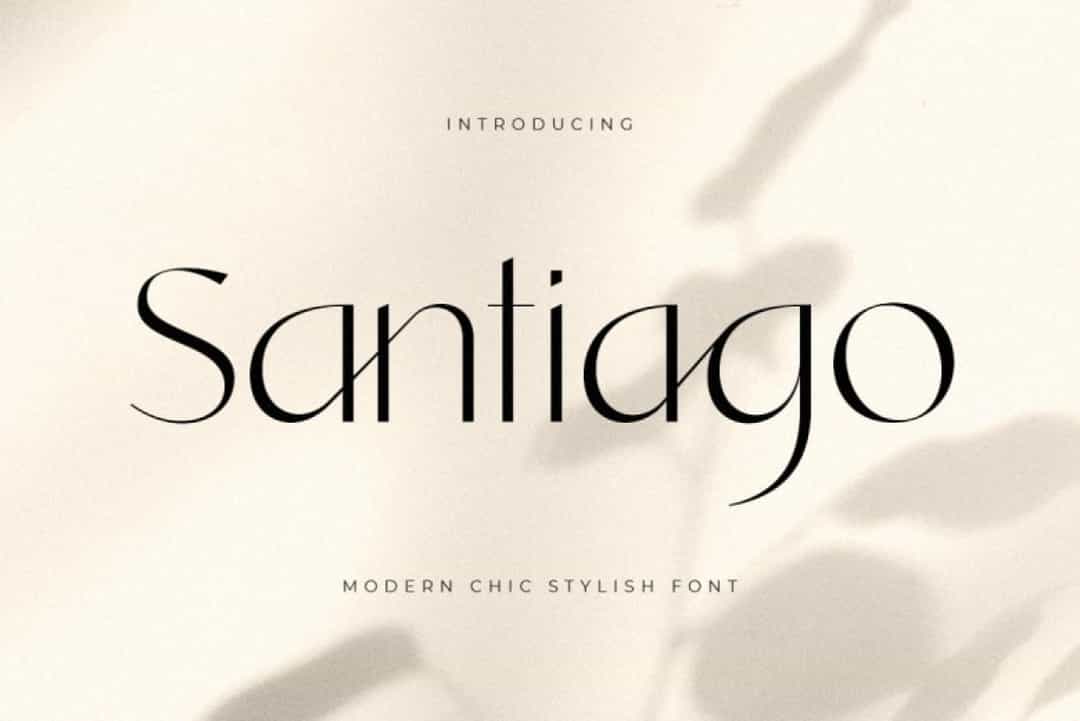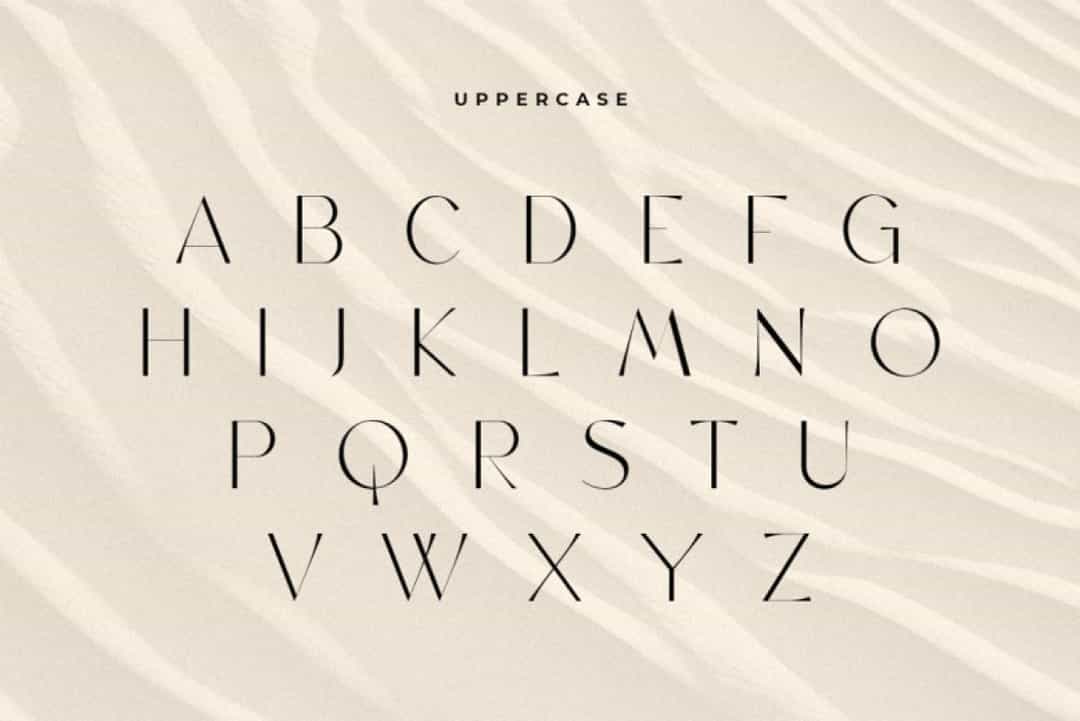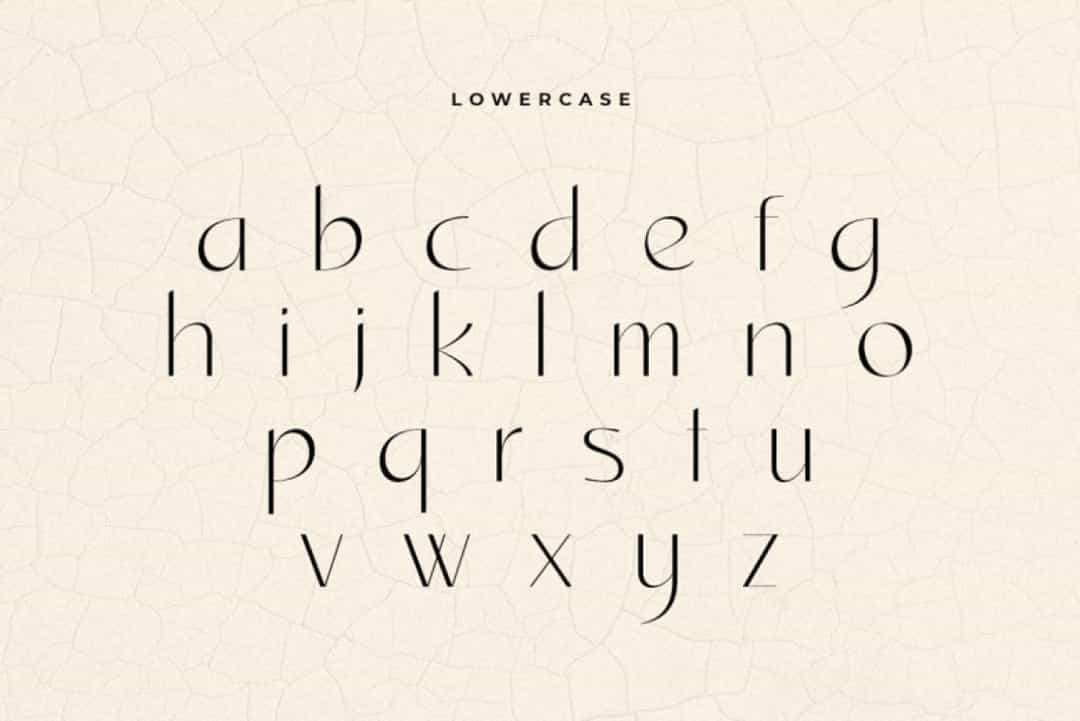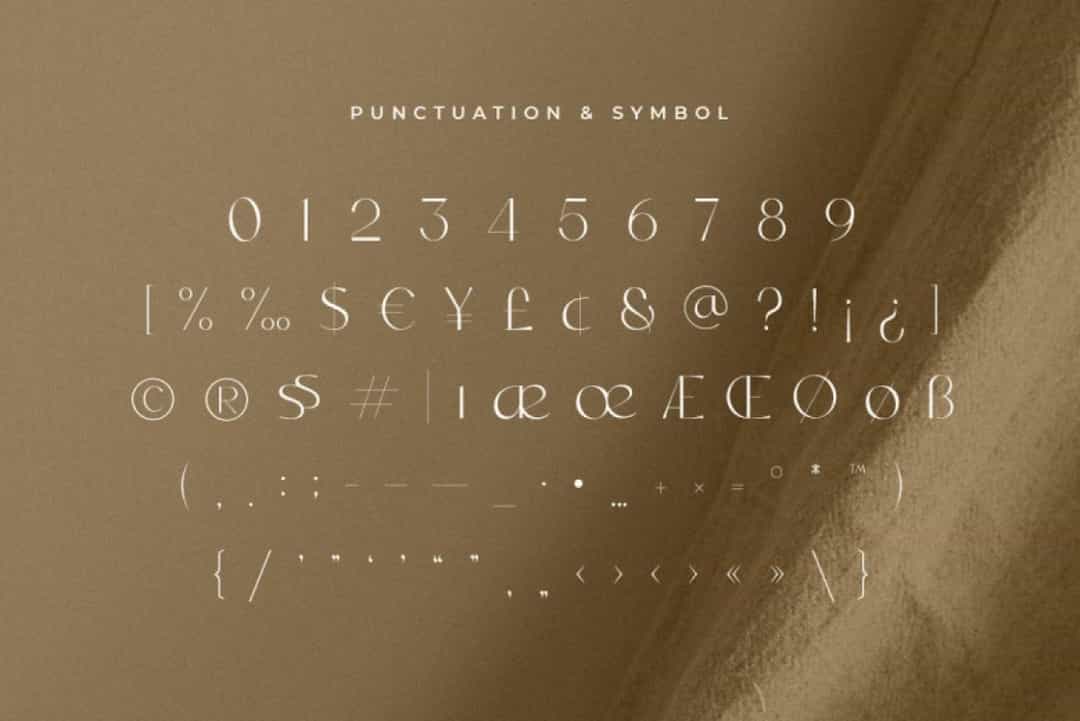
Santiagois an eye-catching sans-serif font with an appealing form and custom ligatures to make logotypes and branding designs more modern and stylish. We create Santiago specifically to meet this need of designers or owners of products who require modern and stylish appearance improvements for their product lines.